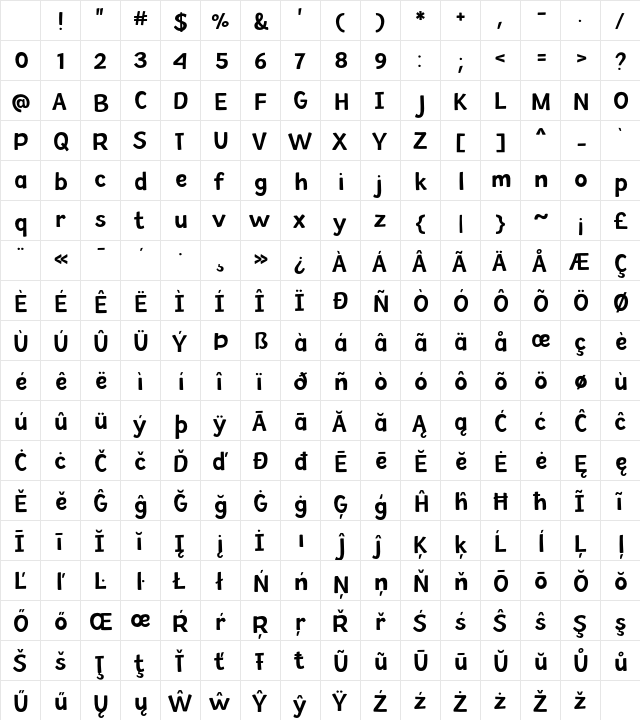
Complete Winter Storm Regular glyph index. Displaying only characters natively supported by Winter Storm Regular font.
Winter Storm is a composed and adaptable typeface that performs quietly and consistently across a wide range of design contexts.